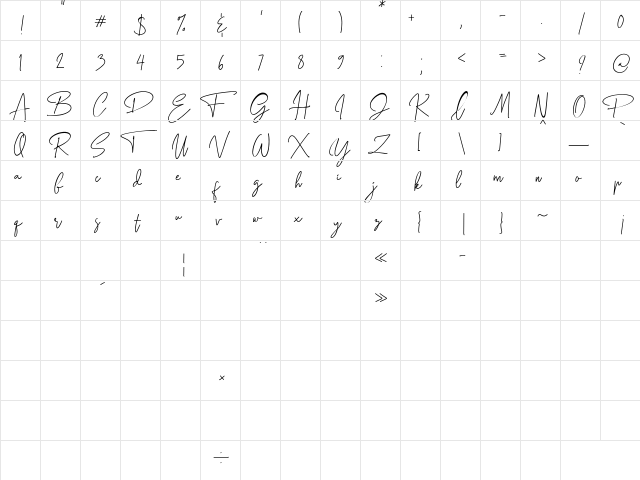
Petricia Regular
Design Context for Petricia Typeface
Petricia is a composed and adaptable typeface that performs quietly and consistently across a wide range of design contexts.